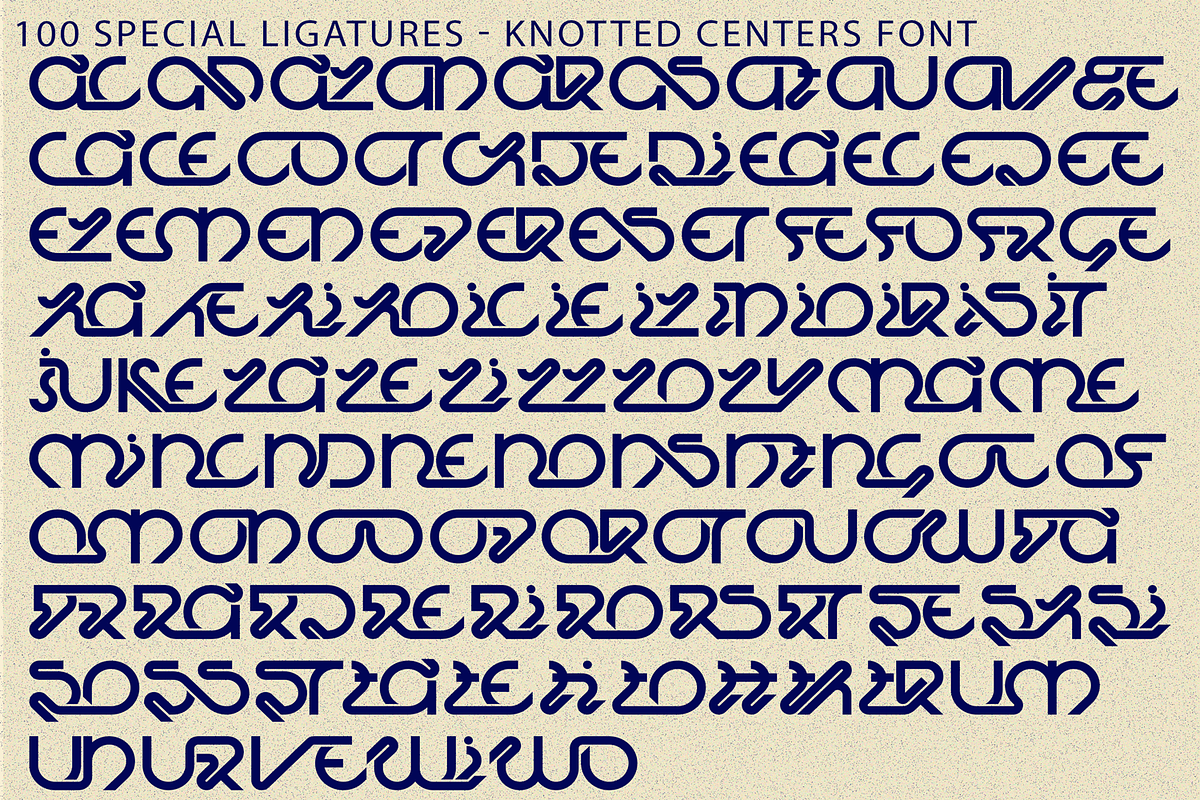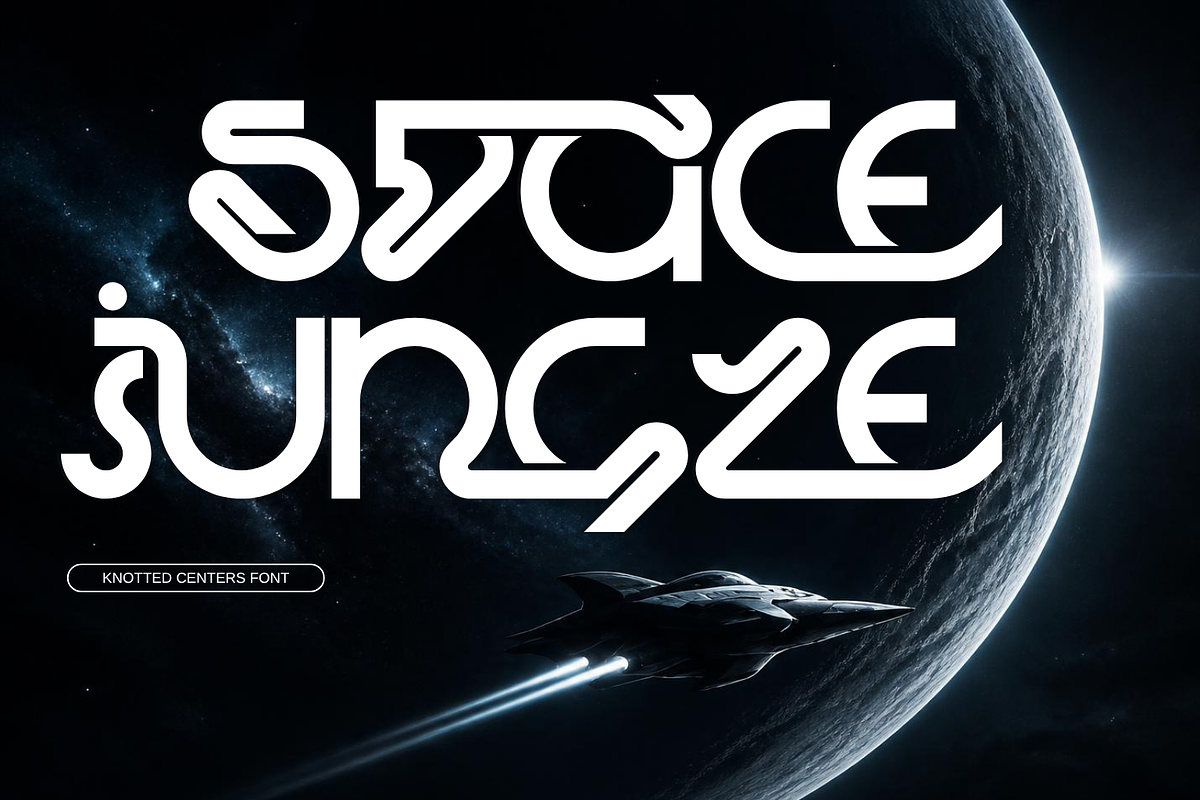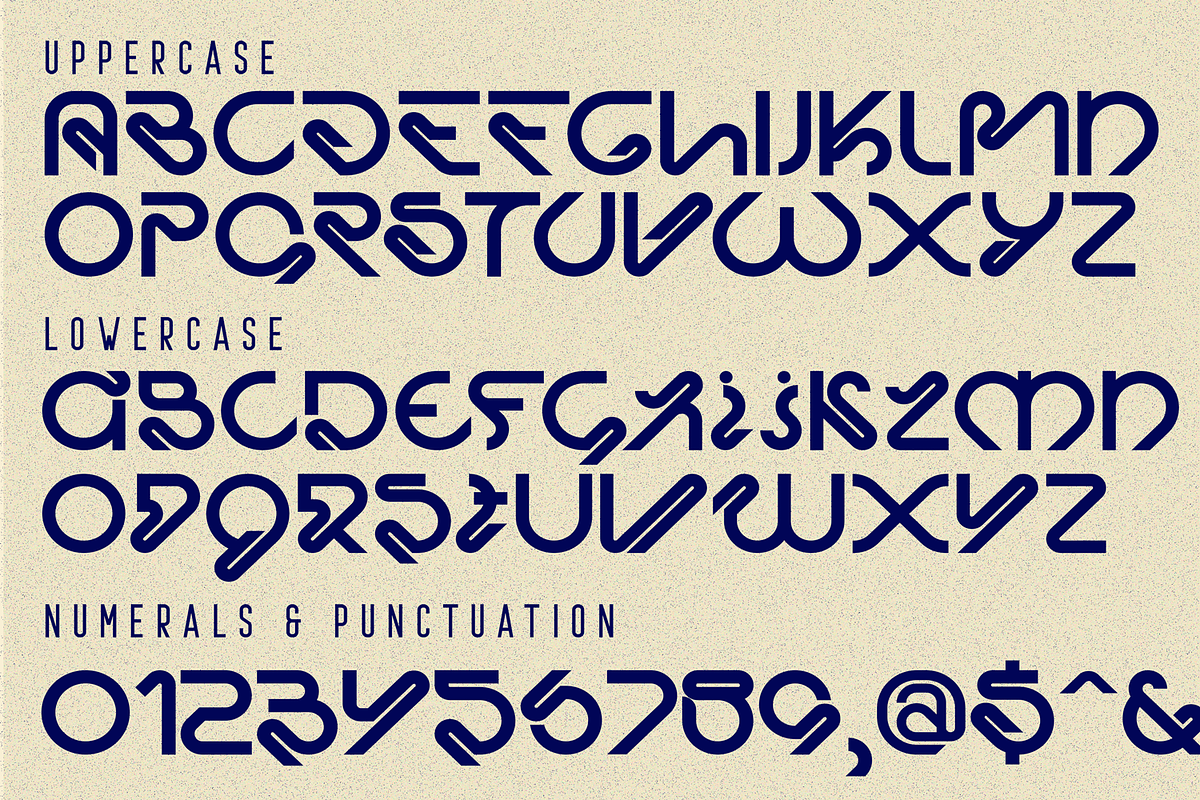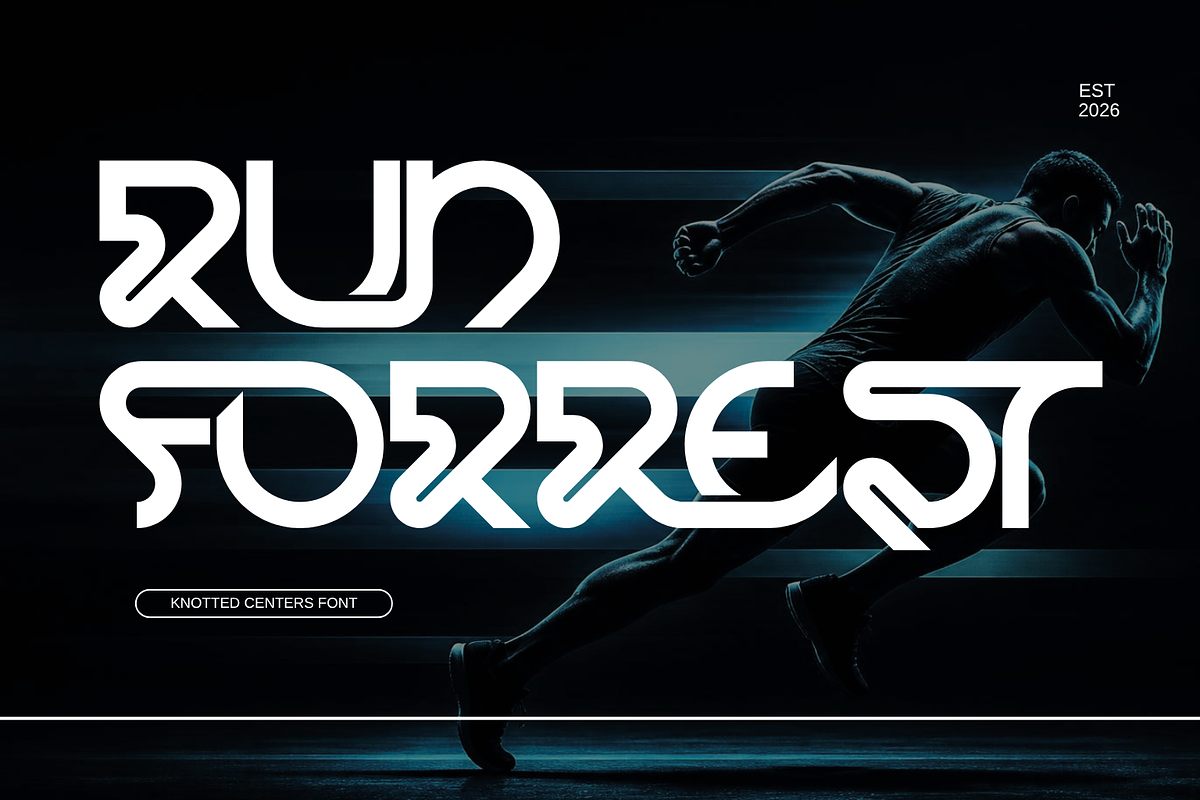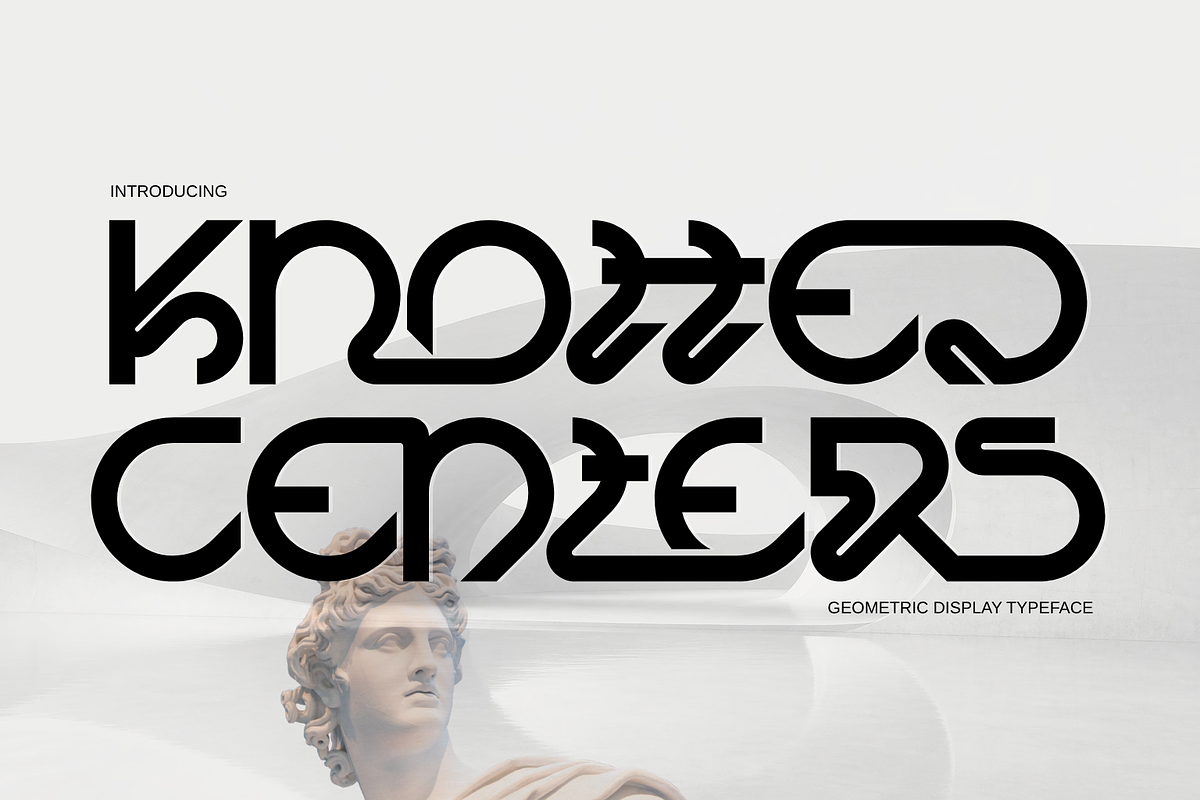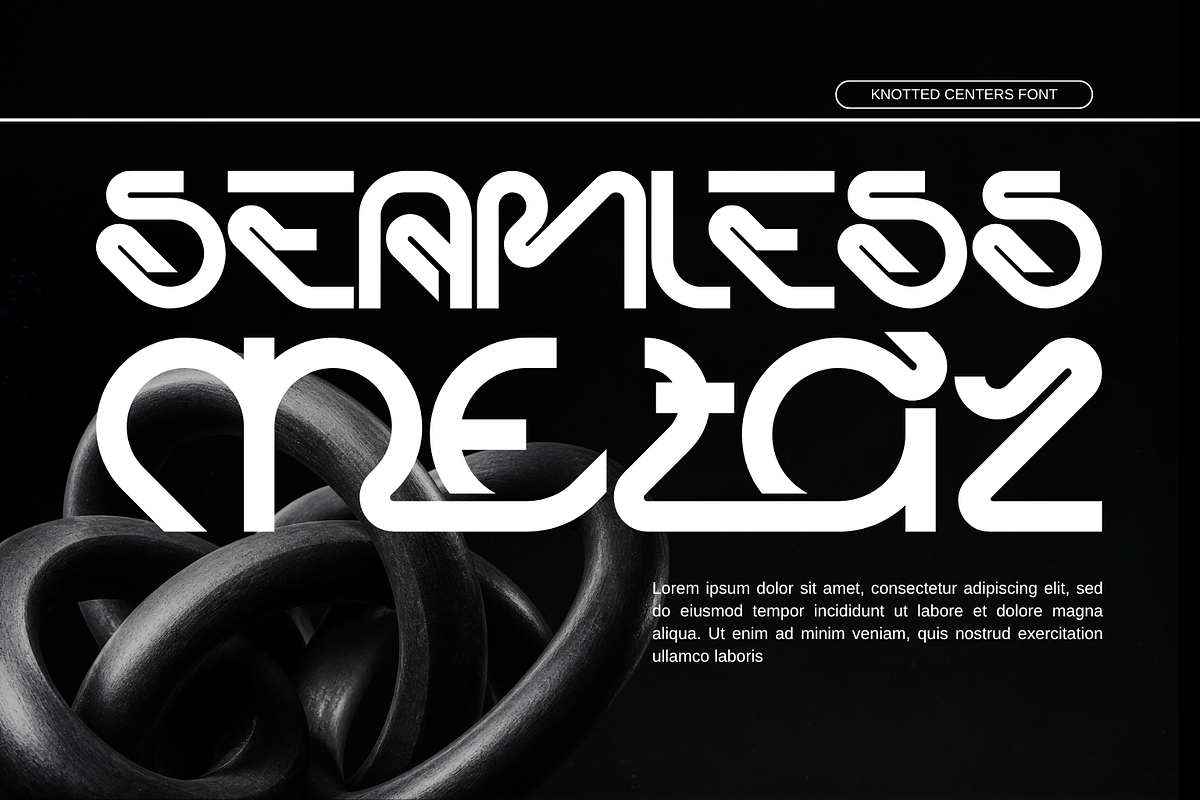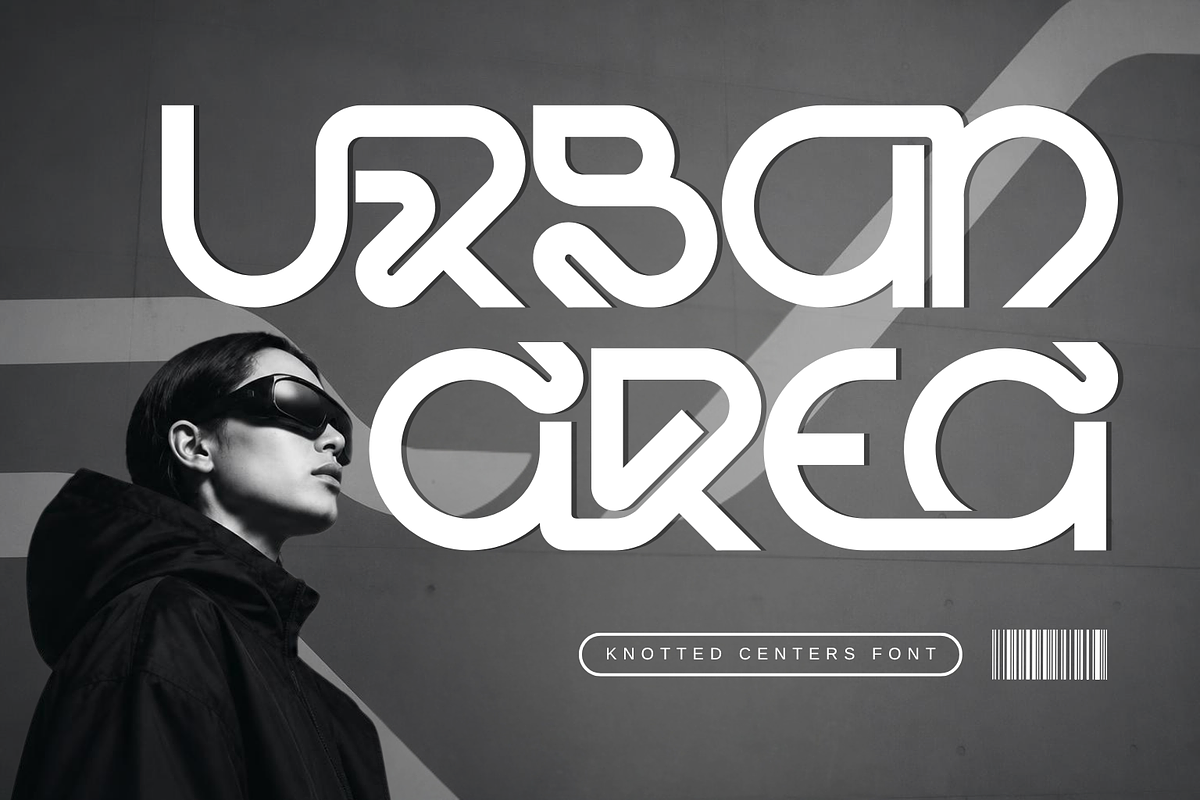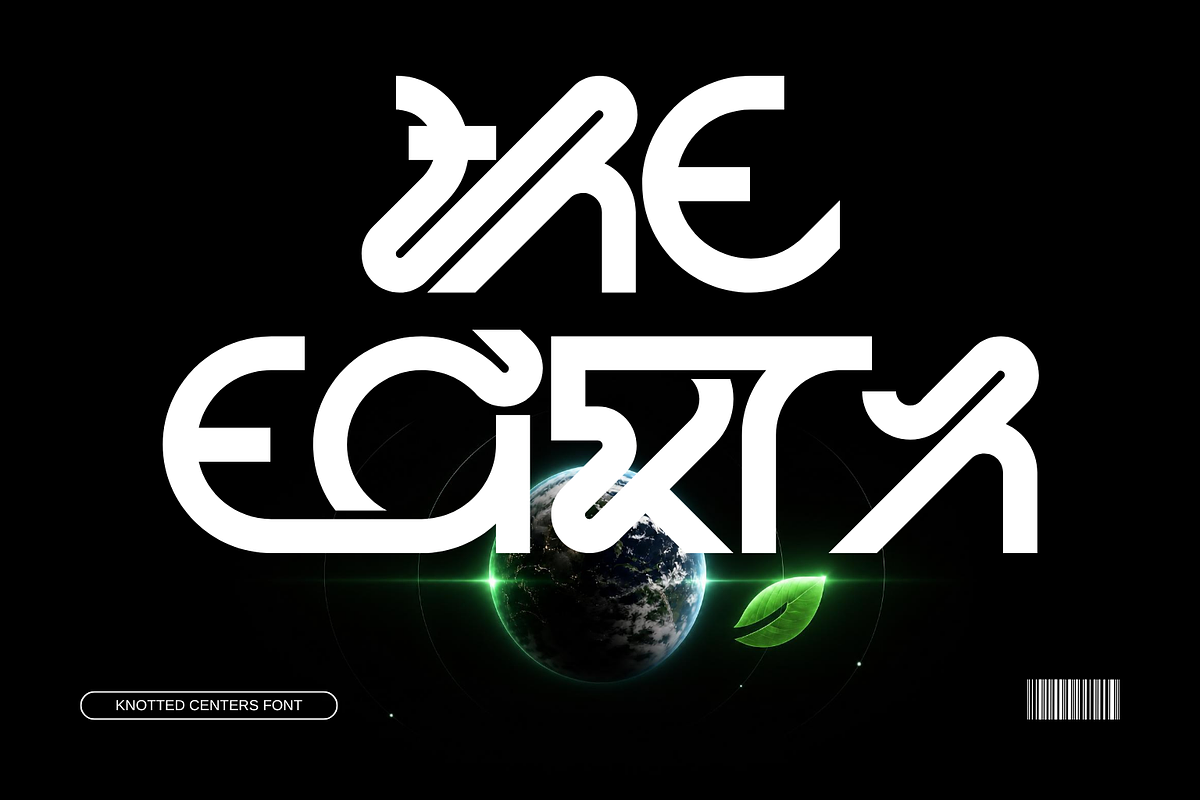
Knotted Centers - Geometric Font
Knotted Centers - Geometric Font – Experimental Monoline & Futuristic Ribbon Display Font, is a striking experimental display typeface designed at the intersection of geometric monoline architecture, interwoven ribbon dynamics, and avant-garde futuristic typography. Defined by its continuous line weight, intricate knot-like intersecting nodes, and harmonious blend of sweeping outer loops and sharp diagonal turns, this font brings a bold cybernetic vibe to modern graphics.
Engineered to turn headlines into instantly recognizable logotypes, Knotted Centers delivers a sleek balance between structural fluidity and mechanical precision. It is the definitive typographic choice for electronic music festival posters, high-concept streetwear apparel, modern art exhibition visuals, cybernetic technology brandings, album cover artworks, and futuristic display headlines.
🔤Features:
Uppercase & Lowercase Letters
Around 100 Special Ligatures & Alternates
Accented Characters for multilingual support
🔤About 100 ligatures combined with Stylistic Alternates Font:
ac ad al an ar as at au av be ca ce ch co ct de di ea ec ed ee el em en ep er es et fe fo fr ge ha he hi ho ie ic il in io ir is it ju ke la le li ll lo ly ma me mi nc nd ne ng no nt ns oc of om on oo op or ot ou ow pa pr ra rd re ri ro rs rt se sh si so ss st ta te th ti to tr tt um un ur ve wi wo